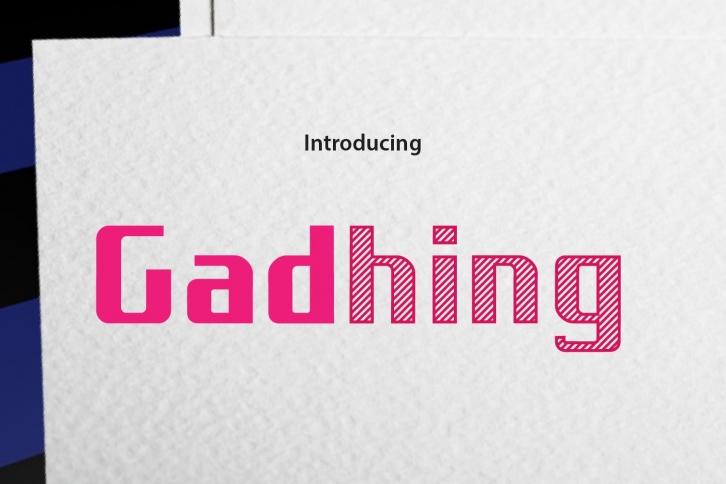
Gadhing is a gorgeous font that was realeased on August 11, 2020. The font can be used in many style contexts and design environments. Perfect for invitations, magazines, websites, logos, and more! It was designed by daonlyaan and the file size is 11.87 MB. Thanks for checking out this font!